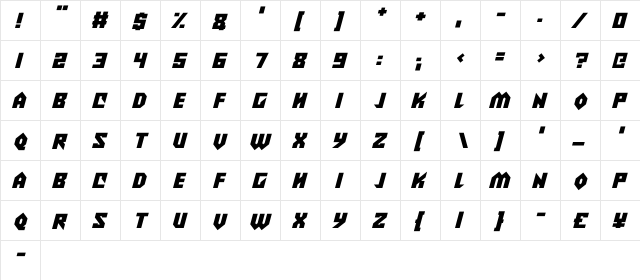
Alien Wars Italic
Design Context for Alien Wars Typeface
Alien Wars is a composed and adaptable typeface that performs quietly and consistently across a wide range of design contexts. Its italic angle brings a sense of urgency and motion to the letterforms.
Pro Tip: Try Alien Wars for annotation and caption copy alongside an upright companion — the contrast in angle creates a dynamic but ordered typographic system.